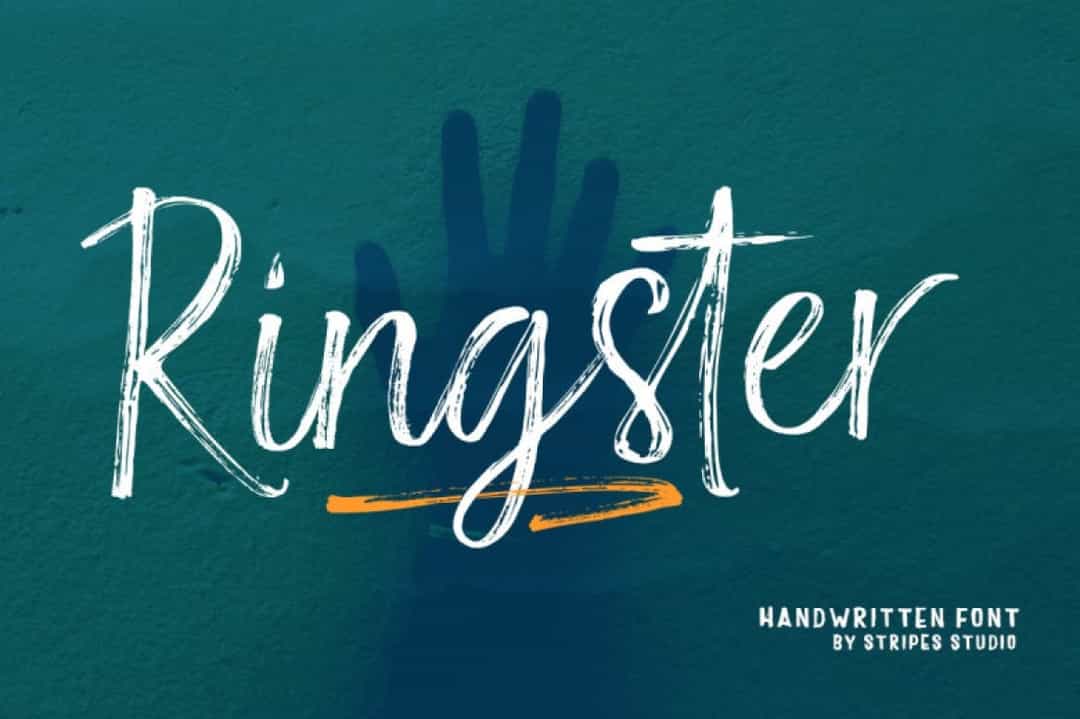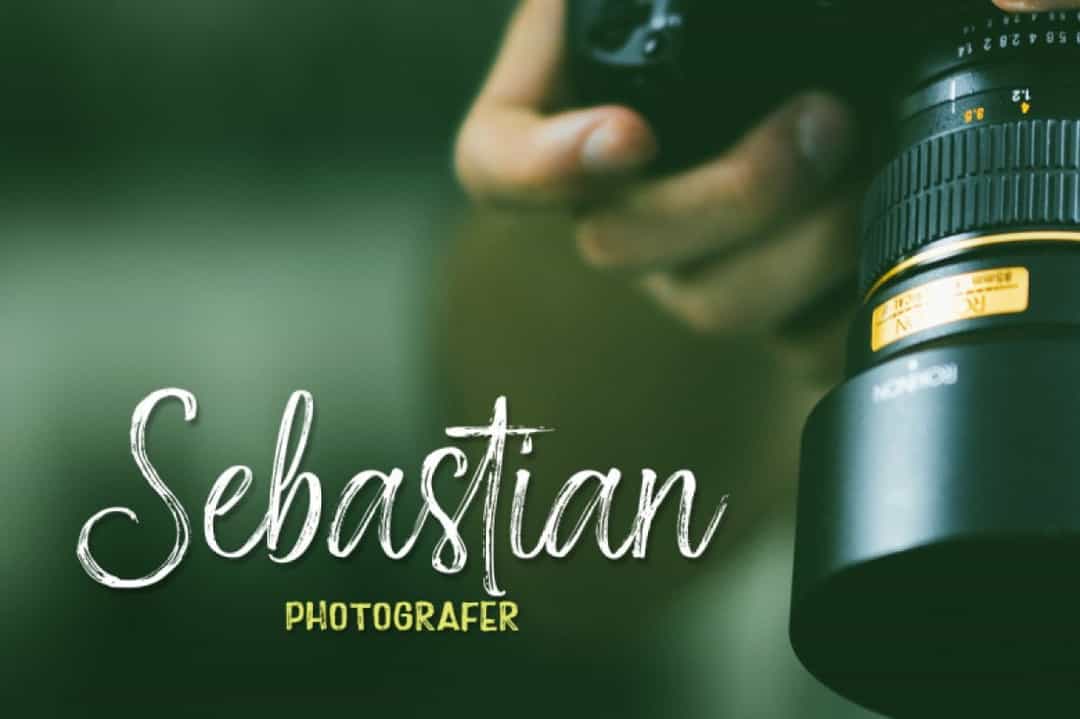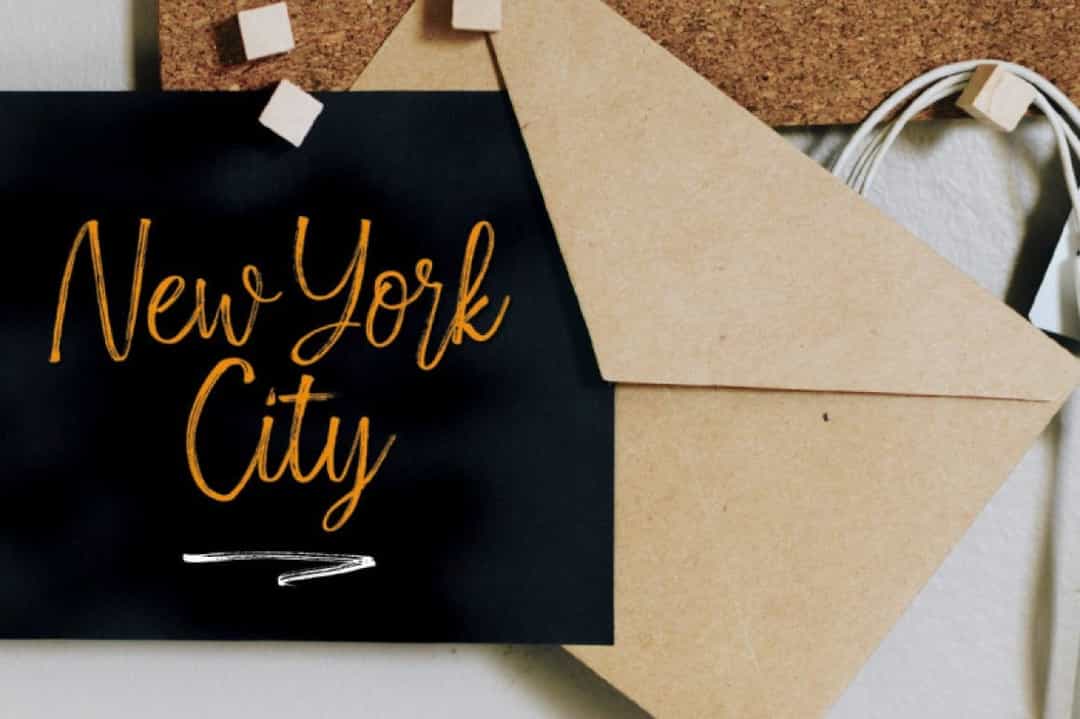
Ringster is an informal hand-brushed script font with intricately detailed brush strokes and an eye-catching playful appearance, which can be used for multiple purposes: titles and signatures, letterheads and signage, labels/posters, newsletters as well as wedding invites, badges etc.